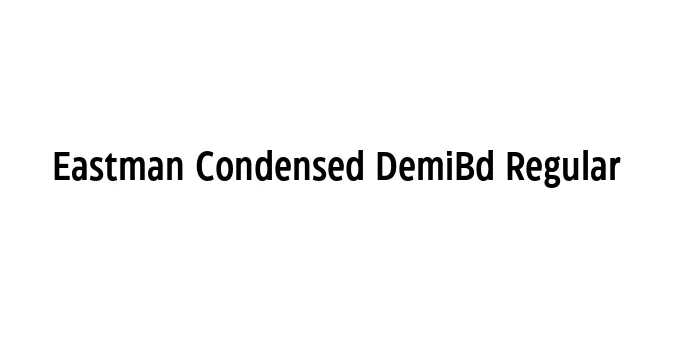
Eastman Condensed DemiBd Regular
Designed by Francesco Canovaro and Andrea Tartarelli
Eastman Condensed DemiBd Regular is a sophisticated geometric sans serif typeface developed by Francesco Canovaro and Andrea Tartarelli for the Zetafonts foundry. Designed as a versatile workhorse, this typeface balances the clinical precision of geometric shapes with subtle humanistic touches that ensure warmth and readability. The condensed version specifically addresses the need for space-saving in dense layouts, making it a favorite for modern editorial and corporate environments.
The Demi Bold weight offers a distinctive visual impact, sitting perfectly between medium and heavy styles. It features a large x-height and open apertures, which maintain legibility even in challenging print or digital conditions. Its clean lines and professional demeanor make it an excellent choice for high-end branding projects, user interface design, and architectural signage where a contemporary and authoritative voice is required.
Eastman Condensed DemiBd Regular Best Uses
Perfect for magazine headers and narrow columns where horizontal space is at a premium.
Ideal for creating a sharp, modern identity for tech firms and creative agencies.
Highly legible for navigation menus, buttons, and mobile app interfaces.
Effective for high-impact social media graphics and promotional posters.